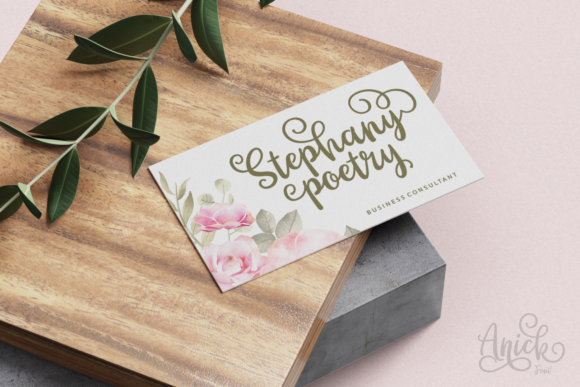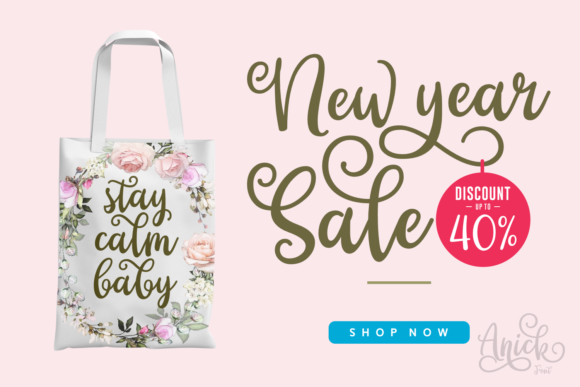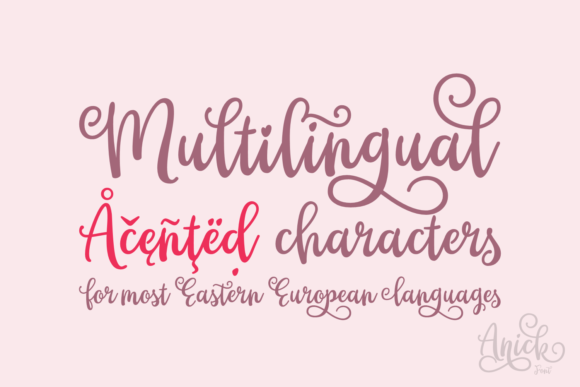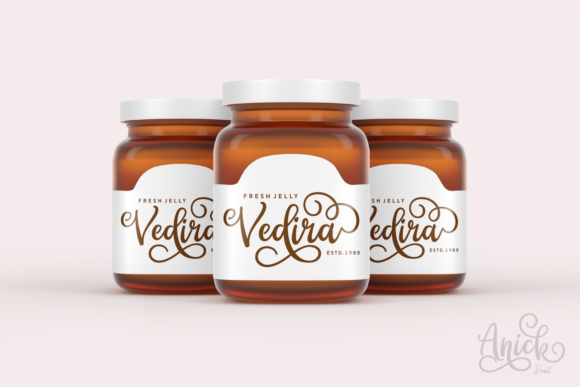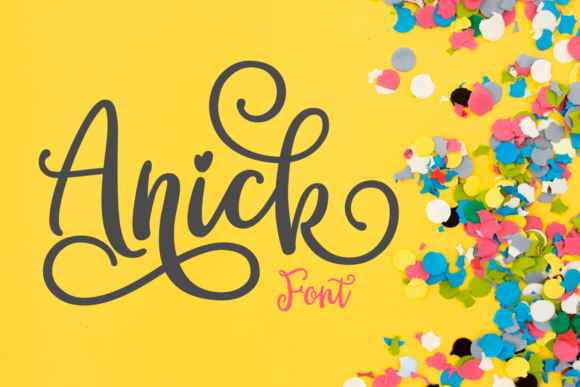
Anick Font
About Anick Font
Anick is an incredibly sweet and playful script with a modern approach to lettering. Use this stunning font to take any craft to the next level!